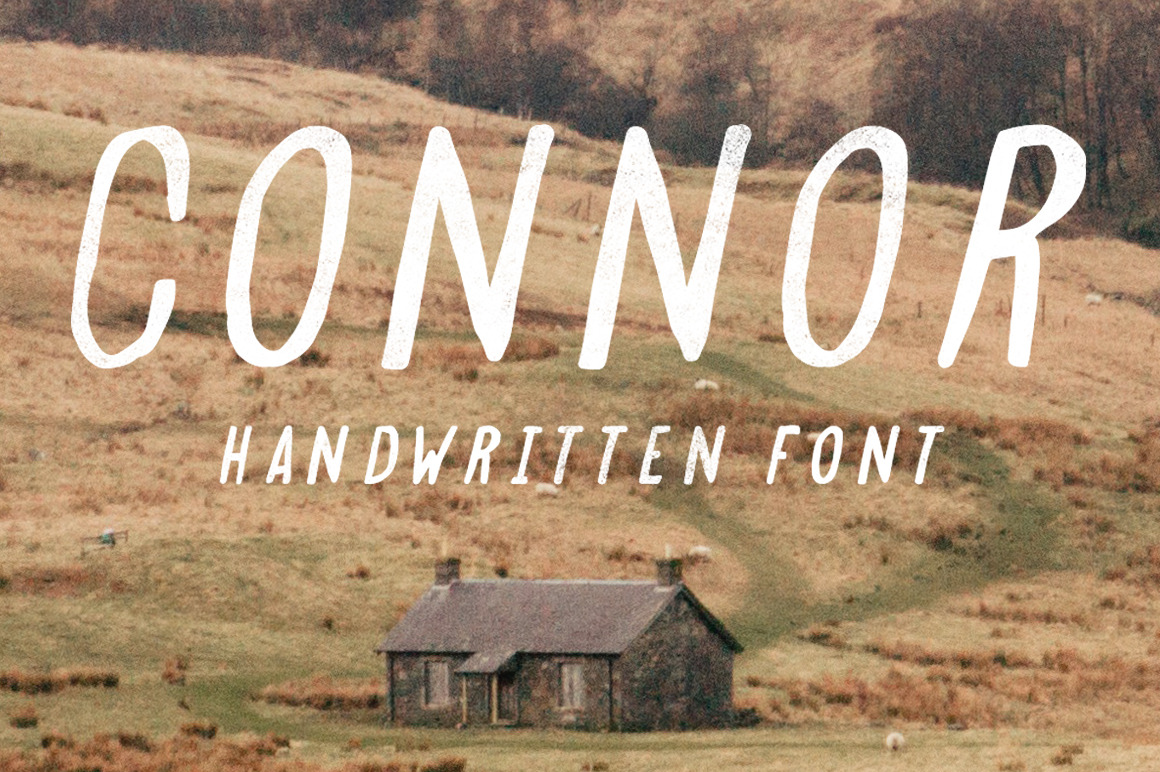
Connor / Handwritten Typeface
This is Connor. An all caps sans-serif handwritten font inspired by the mountains and other hashtaggable adjectives.
- all caps
- numbers & punctuation